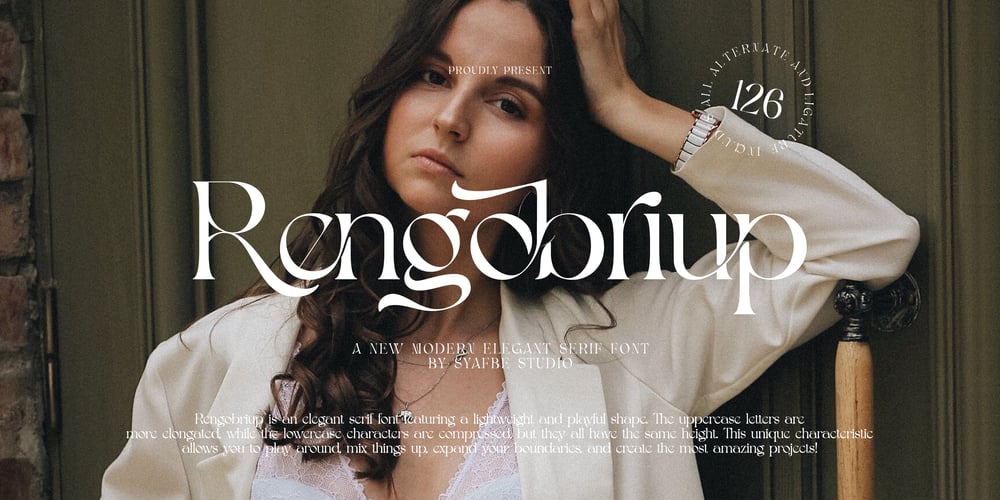
Rengobriup
Rengobriup font
Rengobriup Font Family was designed by Syafwan Mus and published by Syafbe. Rengobriup contains 1 styles and family package options. Rengobriup is an elegant serif font featuring a lightweight and playful shape. The uppercase letters are more elongated, while the lowercase characters are compressed, but they all have the same height. This unique characteristic allows you to play around, mix things up, expand your boundaries, and create the most amazing projects!